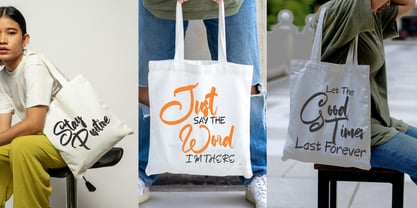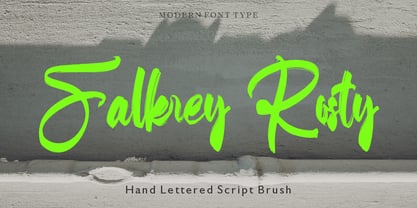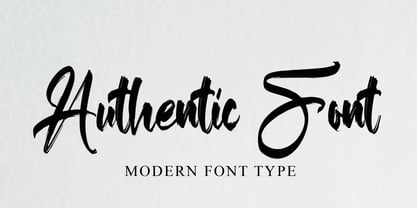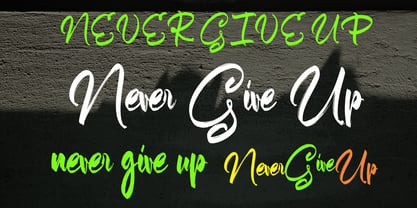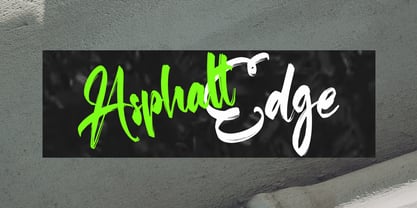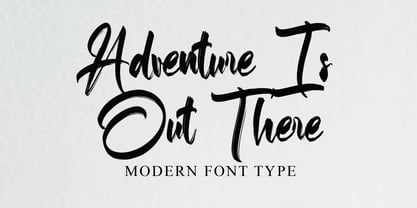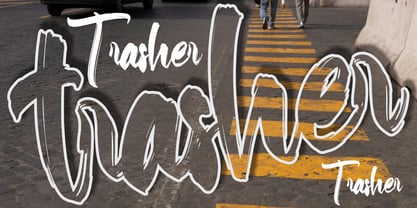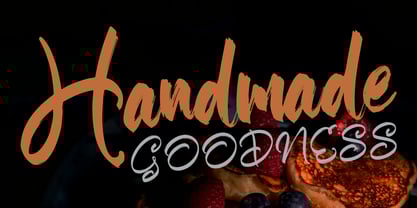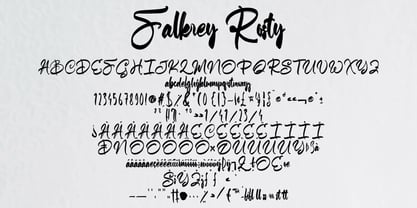
Falkrey Rosty
by Gian Studio
The Falkrey Rosty Font Family was designed by Yusliana M Isa and published by Gian Studio. Falkrey Rosty contains 1 styles. More about this family
Falkrey Rosty is an expressive handwritten font. With modern pen strokes, fun characters with little ligatures, alternate lowercase, and swashes. To give you more creative work. Falkrey Rosty font supports multilingual. This font is good for logo design, social media, movie titles, book titles, short texts even long letter texts and good for your secondary text font with sans or serif. Create stunning work with Falkrey Rosty font.